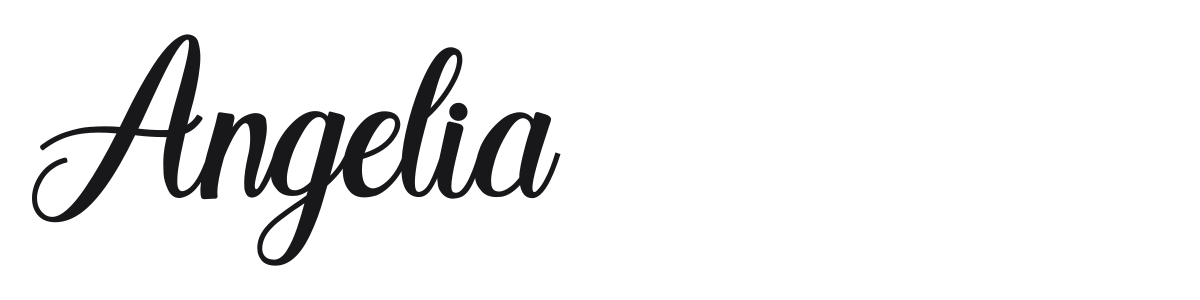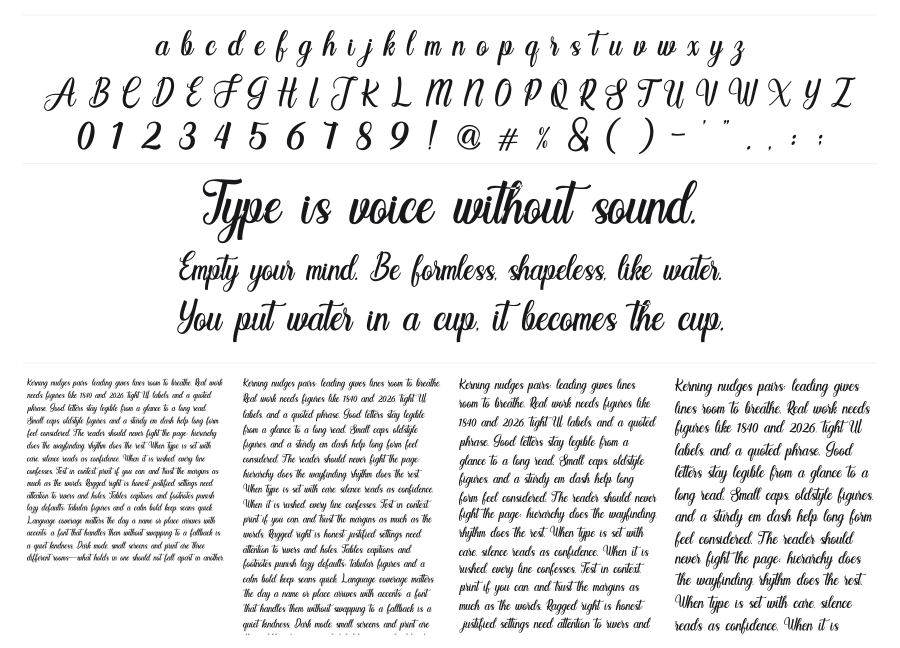
Angelia
Angelia is a bold casual script with full, rounded strokes and smooth flowing connections throughout. The high contrast between thick stems and delicate hairlines gives it a classic brush-lettering feel, while the lively baseline rhythm keeps it feeling fresh and approachable. It works well at large sizes for logos, packaging, and headline use.